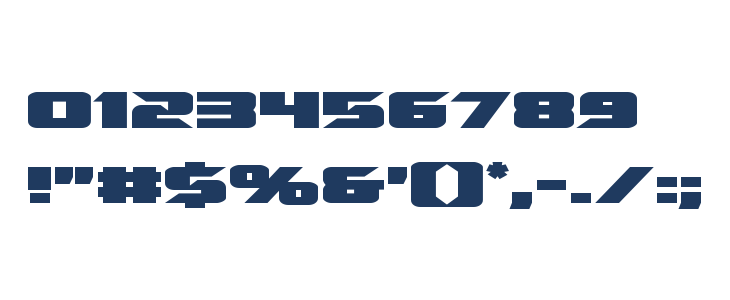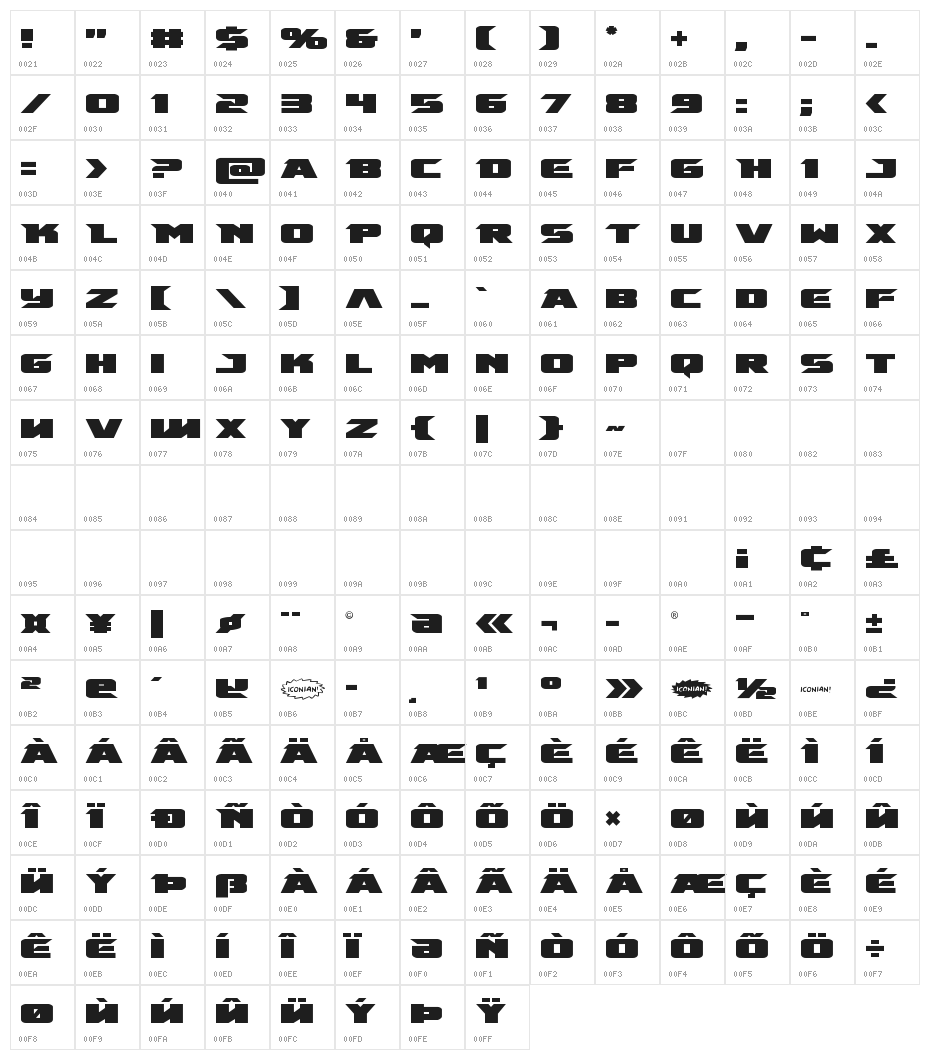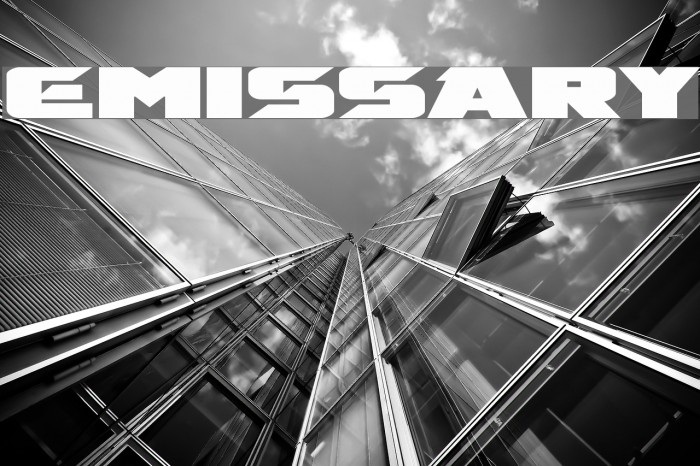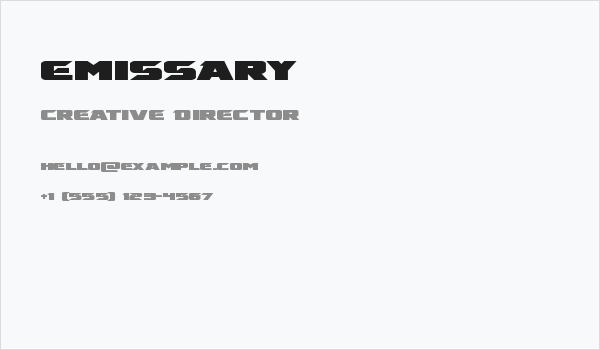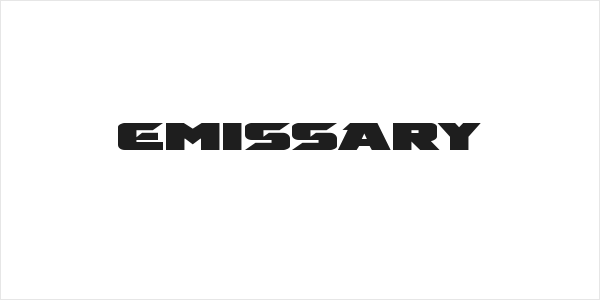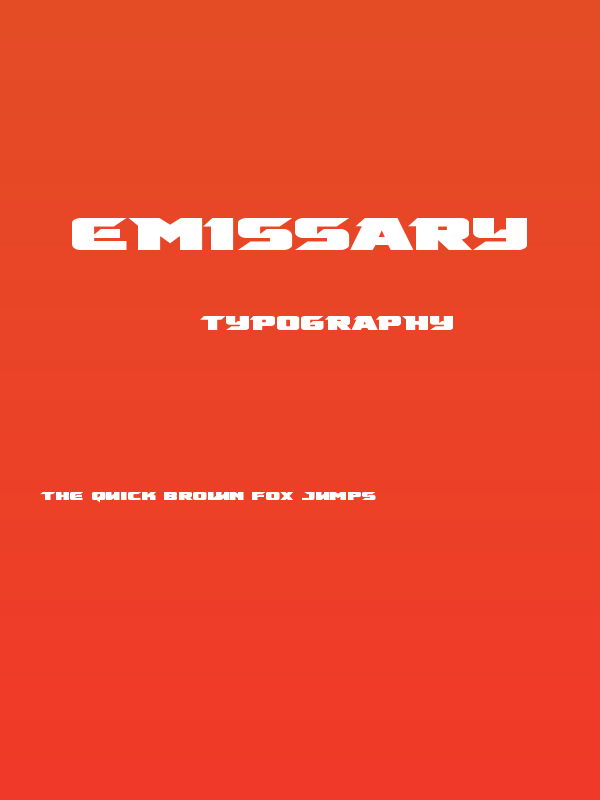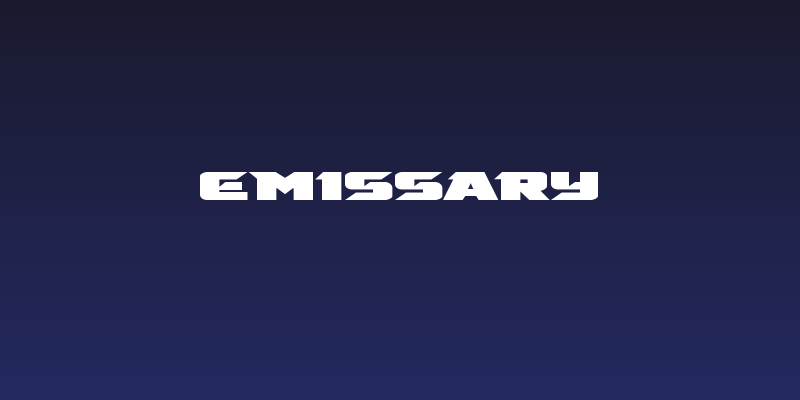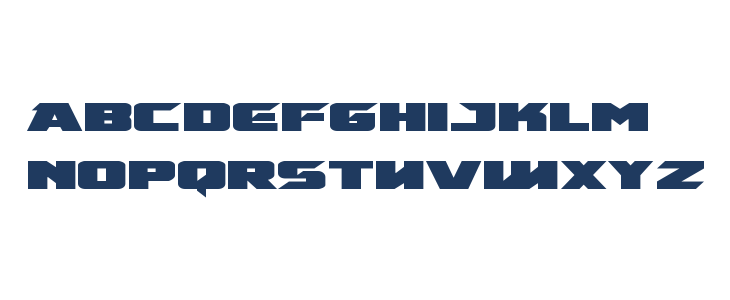
Emissary Font
Emissary Description
This font features a bold and futuristic design with sharp angles and geometric shapes. The characters are wide and have a strong presence, making them ideal for attention-grabbing headlines or logos. The uppercase letters are particularly striking, with unique cuts and slants that give the font a dynamic and edgy appearance. The numbers and special characters maintain the same bold style, ensuring consistency across all text elements. The overall look is modern and assertive, suitable for projects that require a strong visual impact.
| Proposed Projects | Ideal for sci-fi themed designs, technology branding, video game titles, and modern posters. |